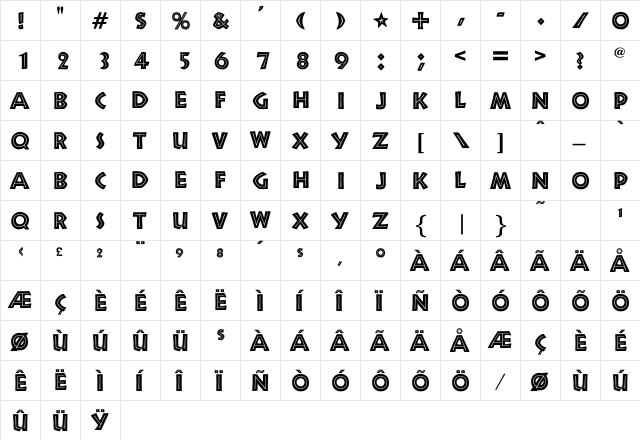
Newsel Regular Font Preview
Newsel Regular
Design Context for Newsel Typeface
Newsel is a composed and adaptable typeface that performs quietly and consistently across a wide range of design contexts.